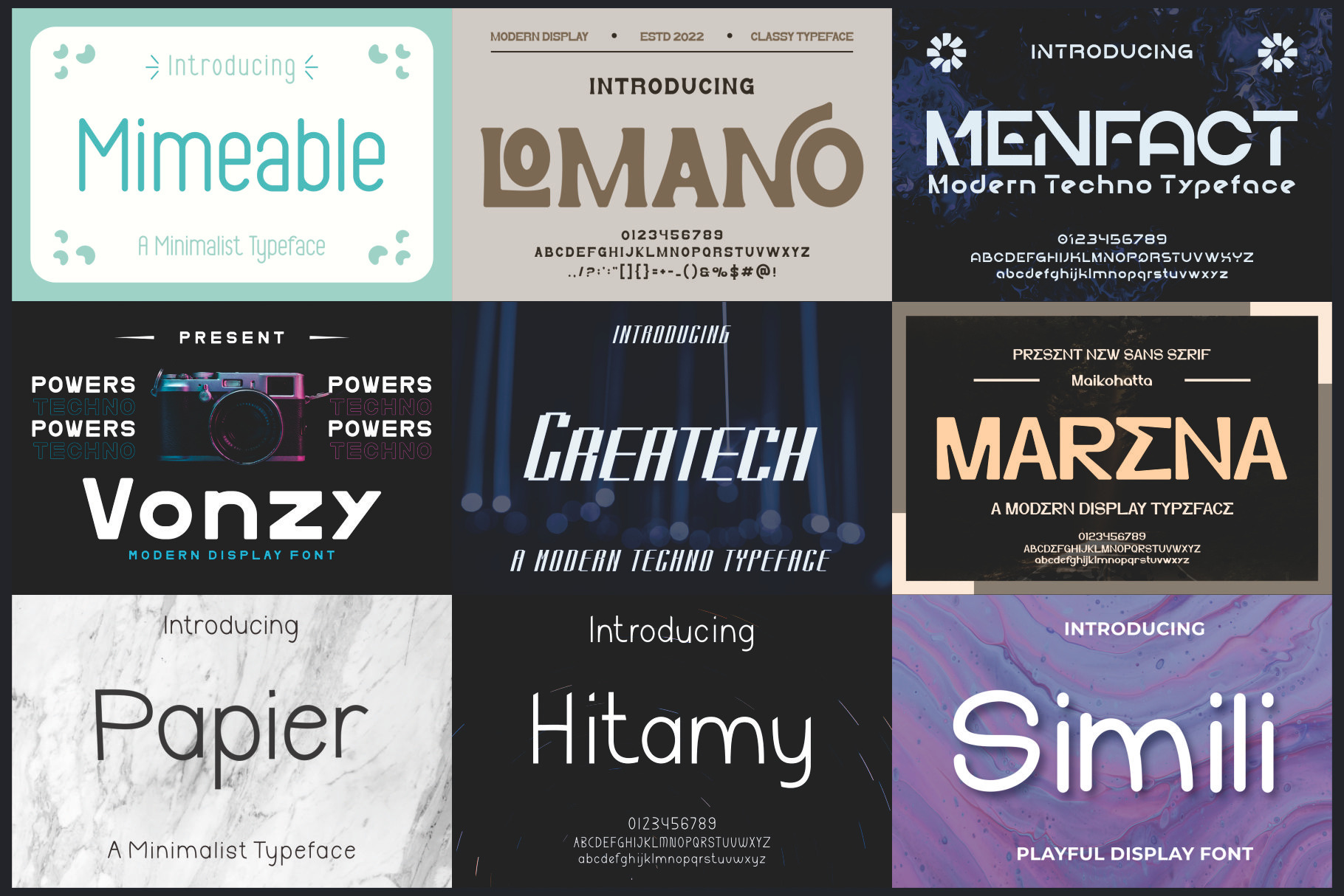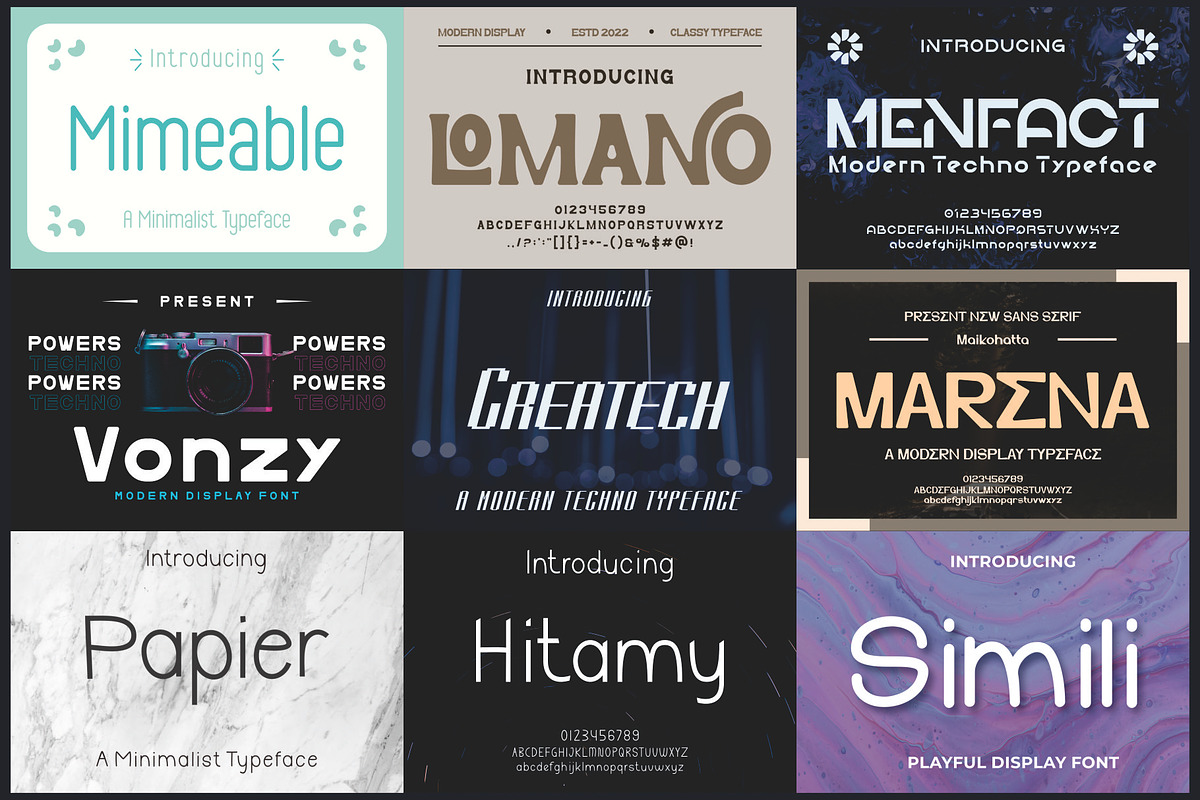
Bundle Display Font
Bundle Display Font - Modern Font is a bold and authentic display font. The font is suitable for any branding project like logo, t-shirt printing, esport, and many more. outstanding in a wide range of contexts.